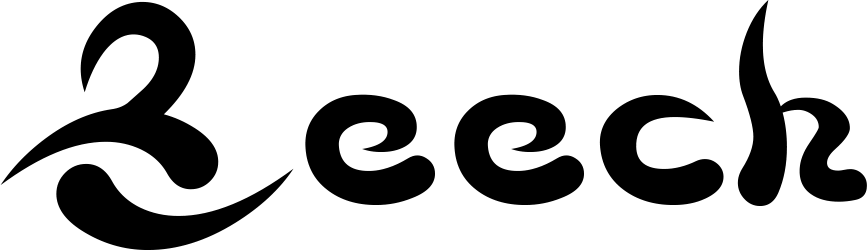
Beech Font
Have you decided on your next tattoo yet? Here is this artistic font called Beech which is a bold, smooth, and curly tattoo font that works wonders.
Beech comes with both uppercase and lowercase letters but there are no numbers in the character collection. Although the uppercase letters are not readable they look quite magnificent. The lowercase letters are easy to read though! You can use Beech in illustrations, tattoos, and many other design areas!